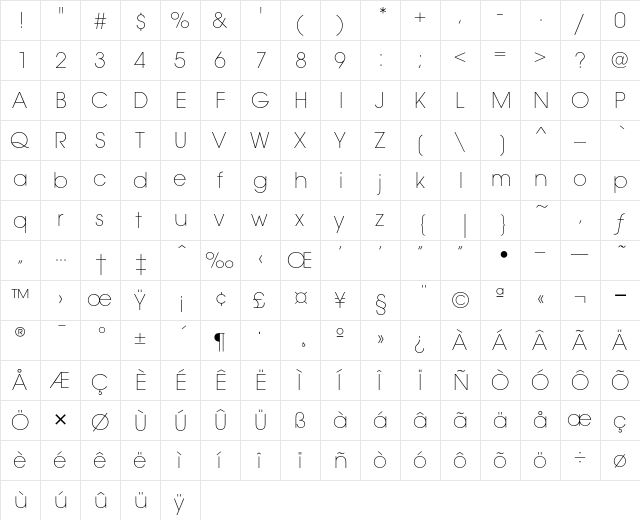
AvantGardeExtLitITC Regular
Design Context for AvantGardeExtLitITC Typeface
AvantGardeExtLitITC offers clean, dependable letterforms without strong stylistic allegiance, making it a practical choice for designers who need flexibility.
Pro Tip: Pair AvantGardeExtLitITC with a font of contrasting weight or personality to build a more expressive typographic hierarchy.